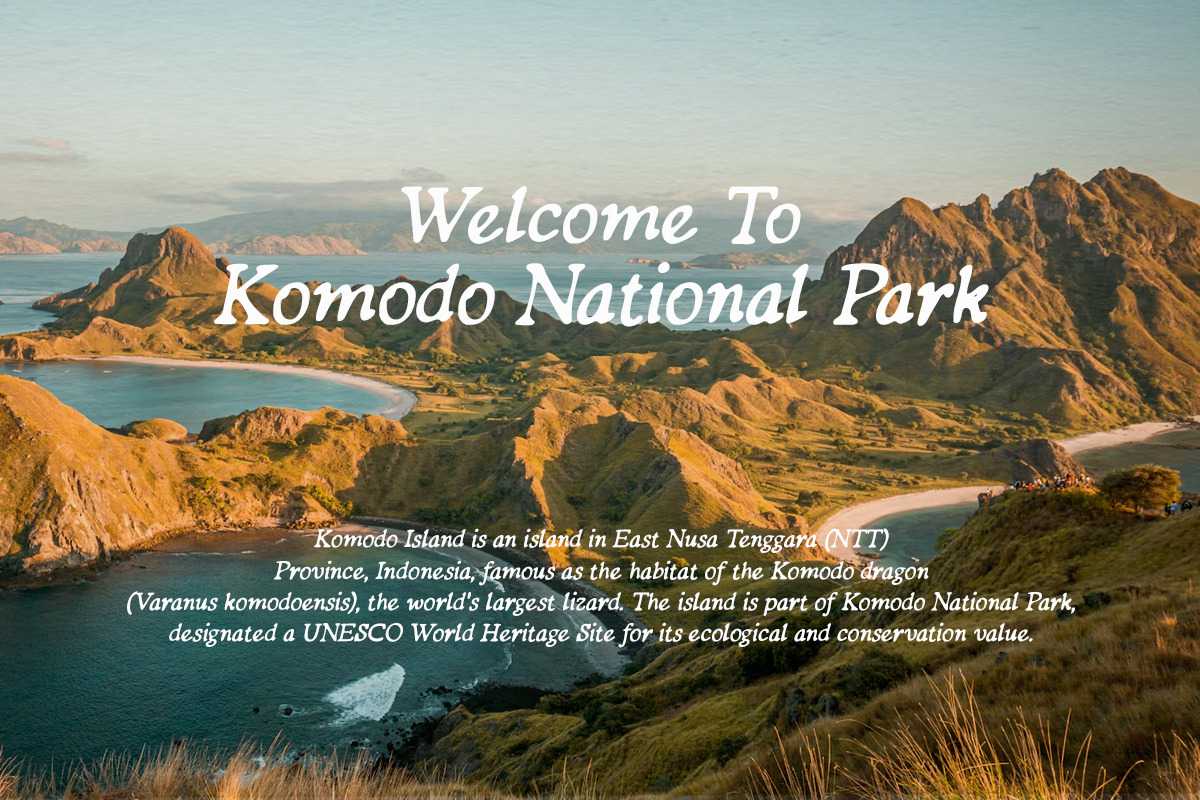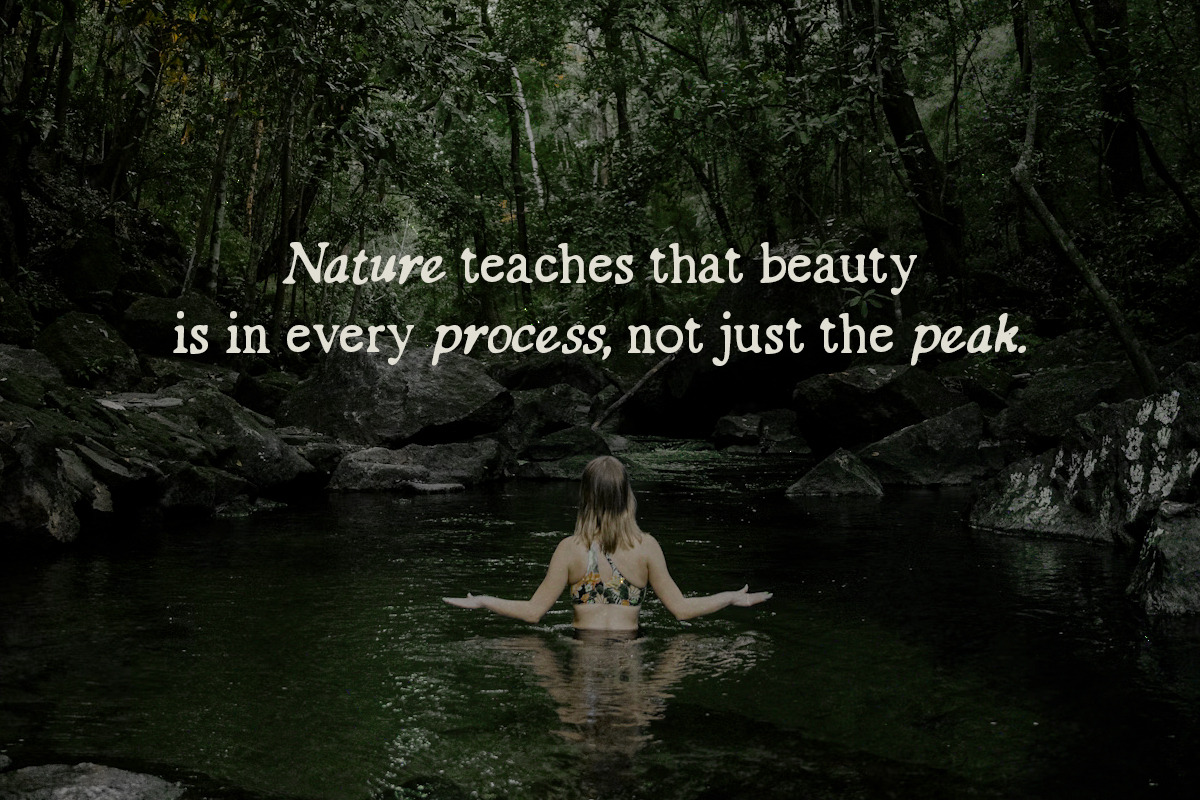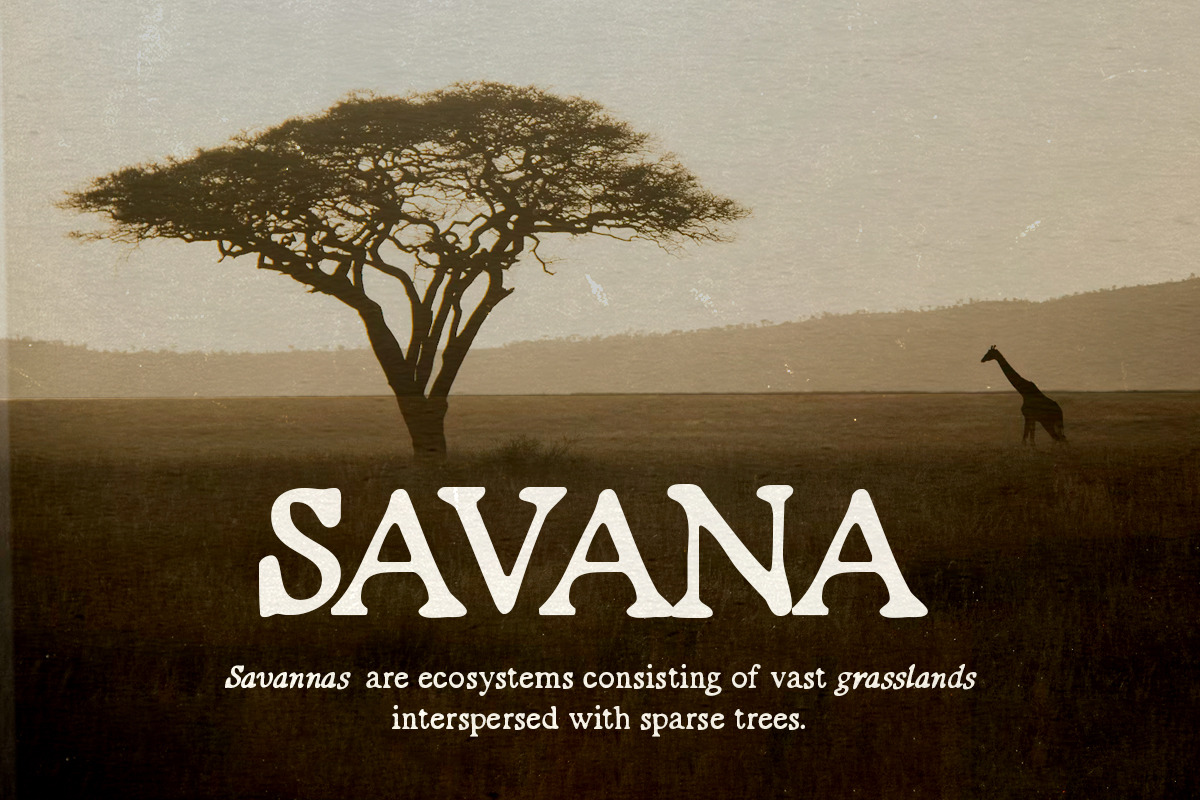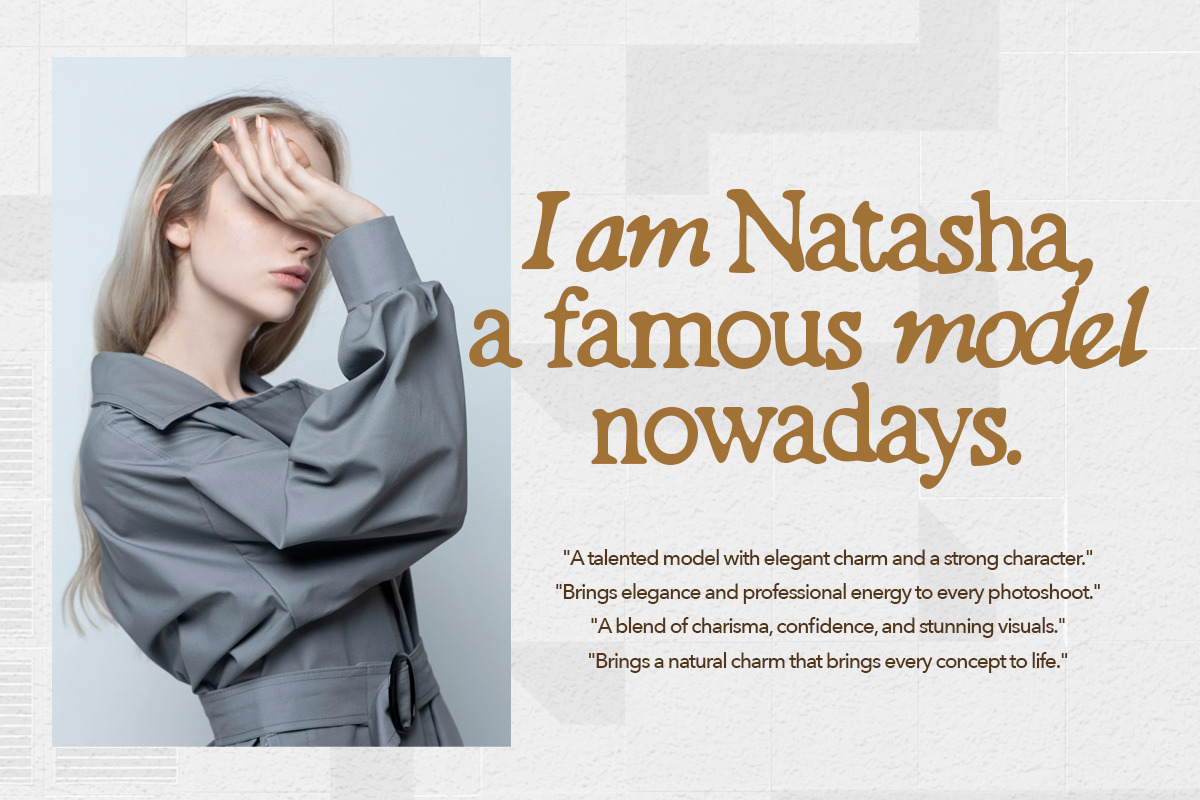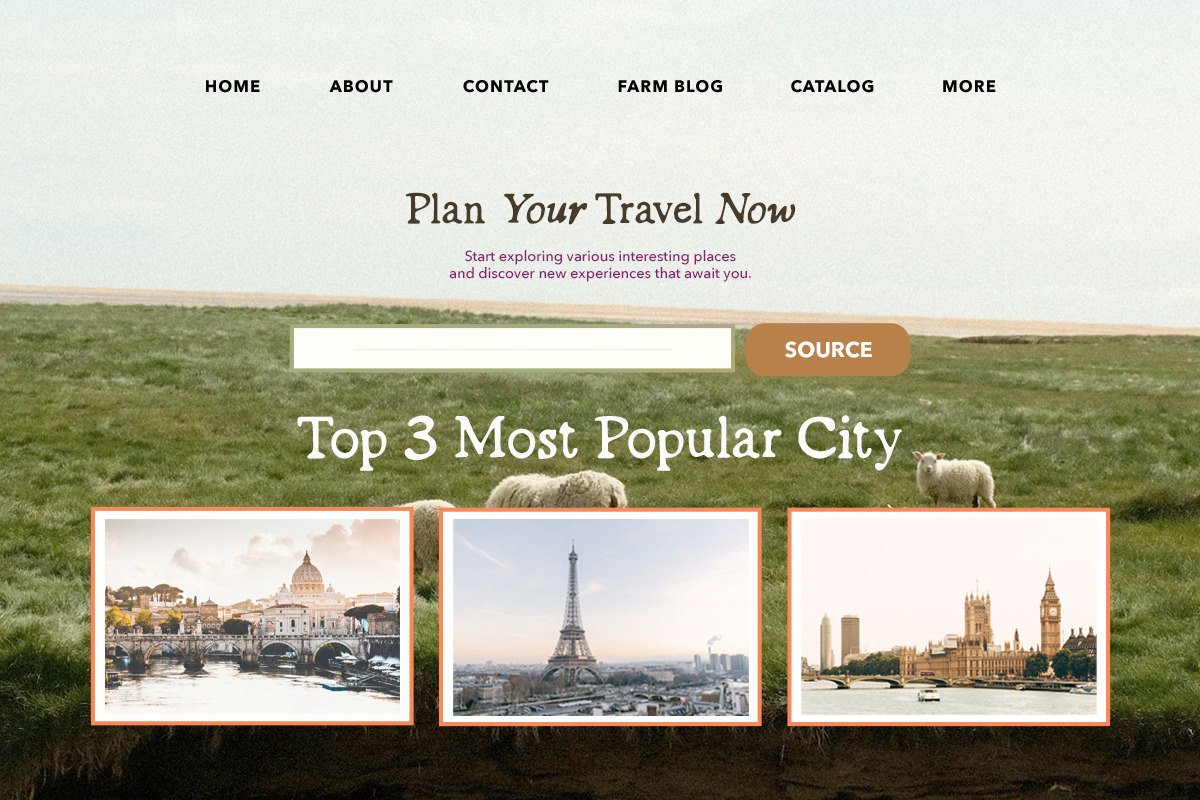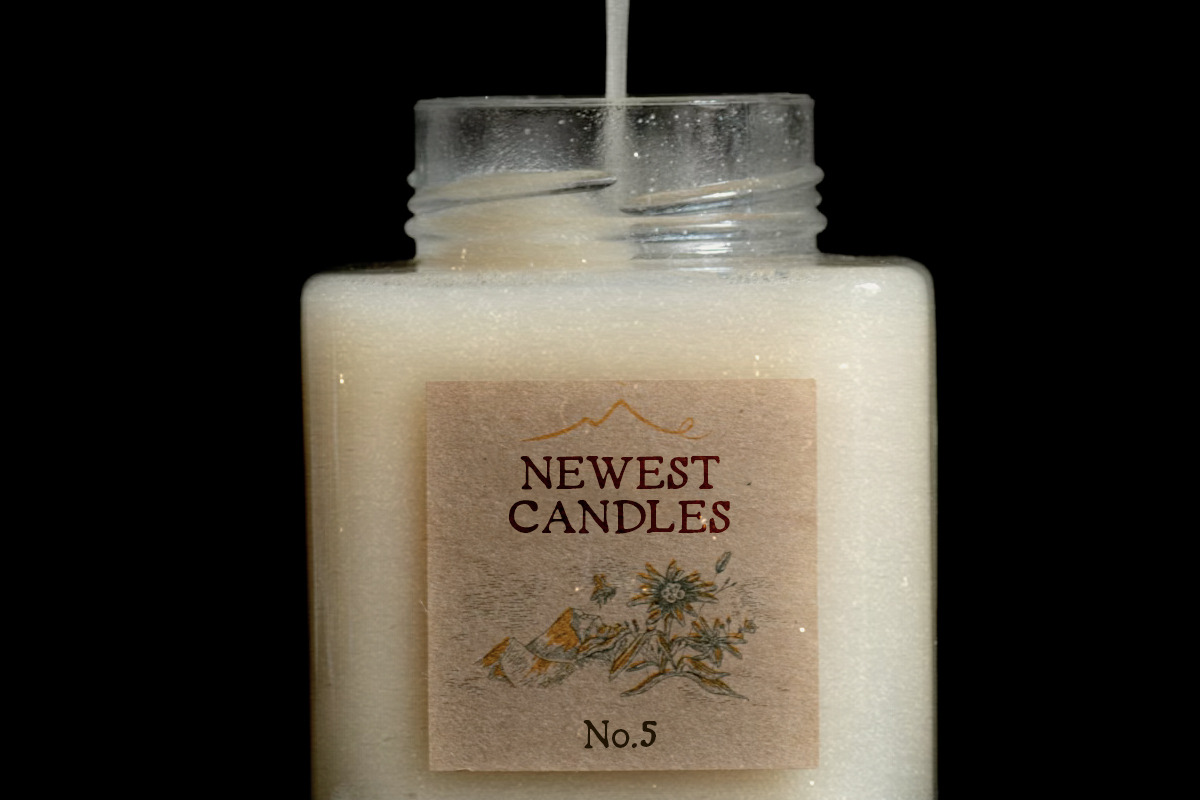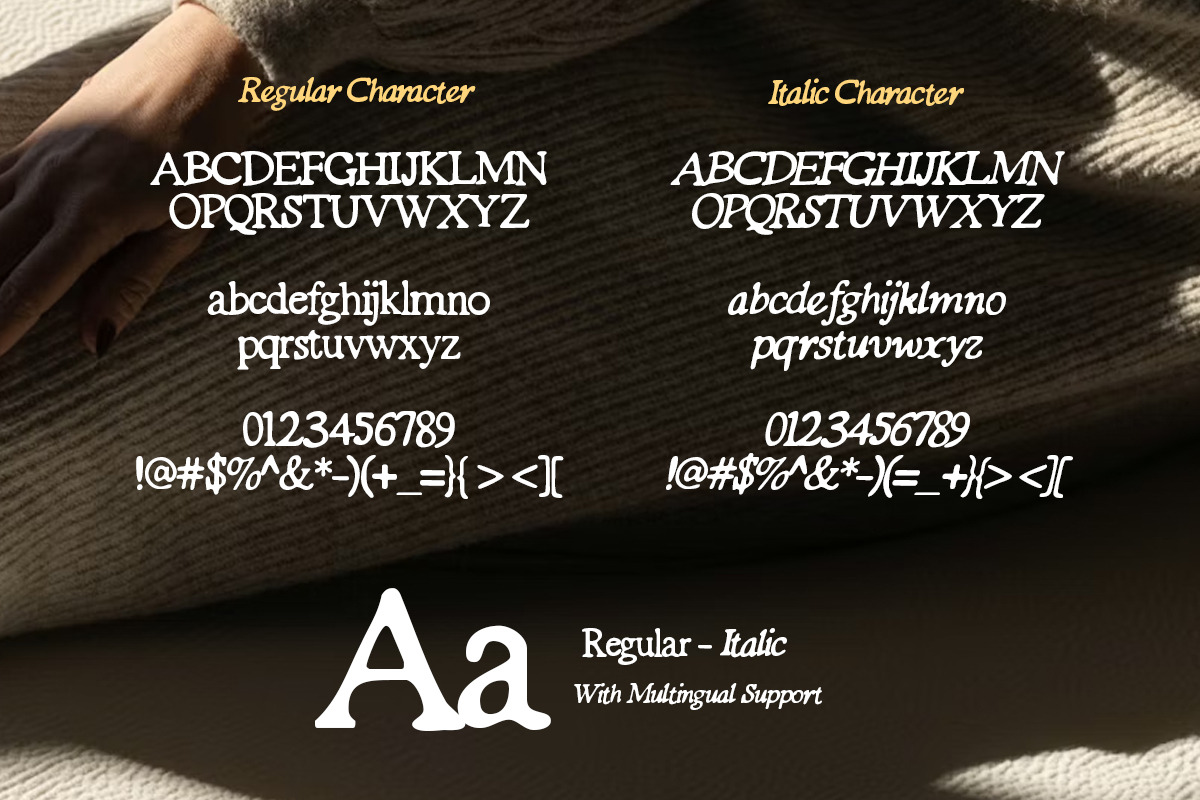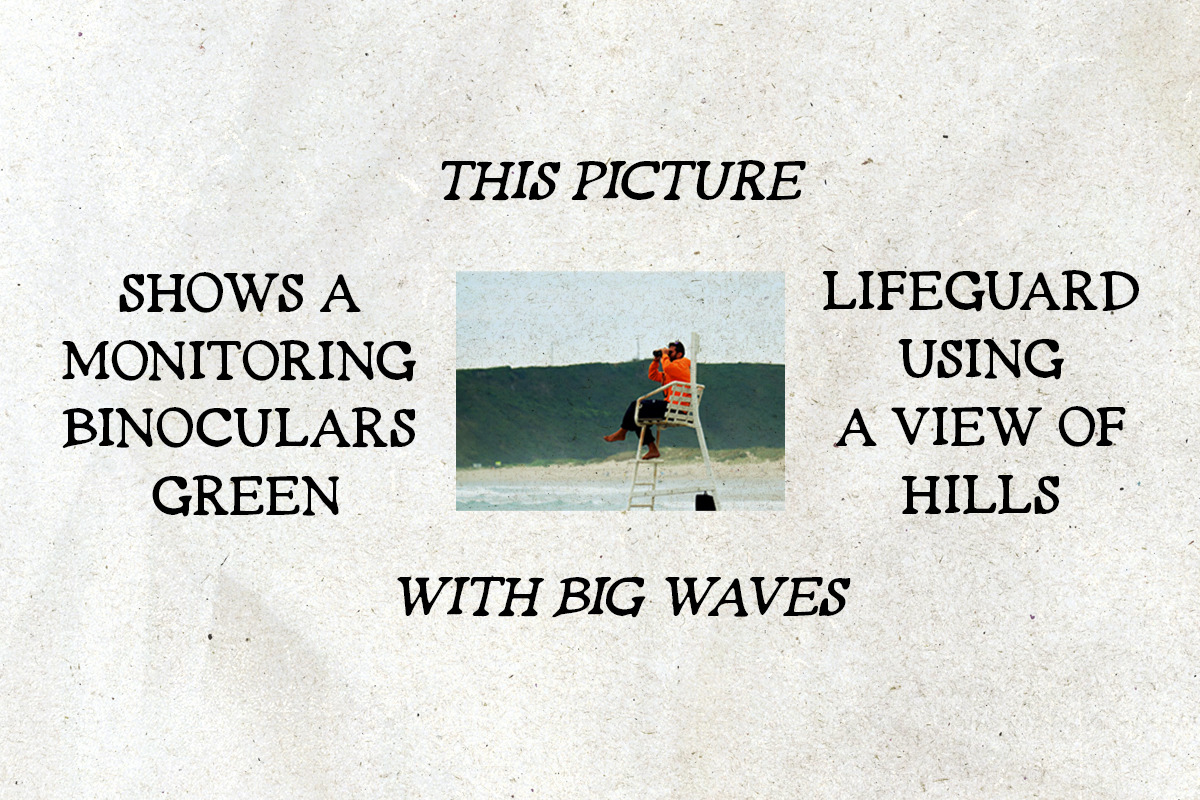
Organic Grain - Handwritten Serif
Organic Grain is a hand-lettered serif font family. Including regular and italic version that you can use to make stunning project with naturally crafted looks. With natural blurred looks, you can use this font for any purposes such as logotype, branding, quotes and also wedding invitations. Organic Grain also support multi language.